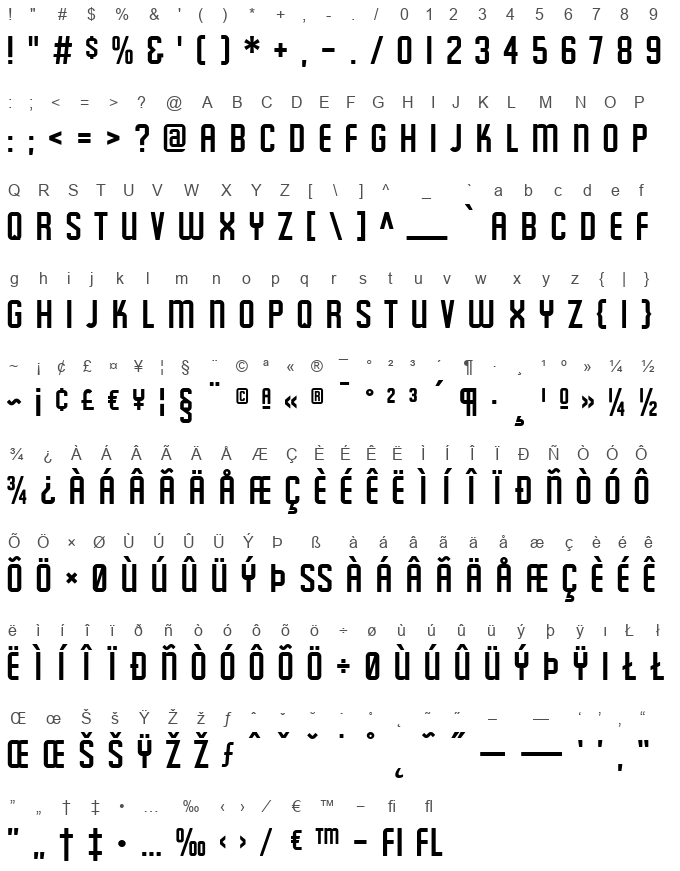
Featured Item, brought to life by the creative minds at Font Diner, carries an unmistakable charm that harkens back to the golden era of mid-20th century American advertising. Picture a lively diner from the 1950s; the air is filled with the aroma of freshly brewed coffee, the jukebox is playing catchy tunes, and everywhere you look, there are vibrant, eye-catching signs boasting specials of the day. Featured Item encapsulates this very essence, wrapping it into a font that's both nostalgic and incredibly dynamic.
At its core, Featured Item is a display font that screams attention. Its characters possess a bold personality, with each letter crafted to stand out on any surface it adorns, be it a menu, a poster, or a website header. The font showcases a delightful blend of varied stroke weights, creating a rhythmic contrast that's visually engaging. This balance ensures that despite its boldness, the font remains highly legible, making it a perfect choice for headlines, titles, and any project that requires a touch of vintage flair.
Another noteworthy feature of Featured Item is its versatility. The font manages to straddle the line between playful and professional with incredible ease. Its retro vibes don’t shy away from a modern touch, making it suitable for a wide range of applications—from branding projects for hip cafes and restaurants to packaging design for products aiming to stand out on the shelf. Featured Item, with its unique blend of nostalgia and contemporaneity, offers designers a tool to make their creations not just seen, but felt; evoking a sense of warmth, familiarity, and an irresistible urge to engage.
Featured Item